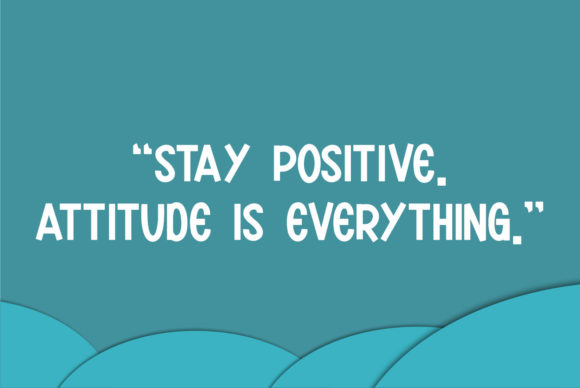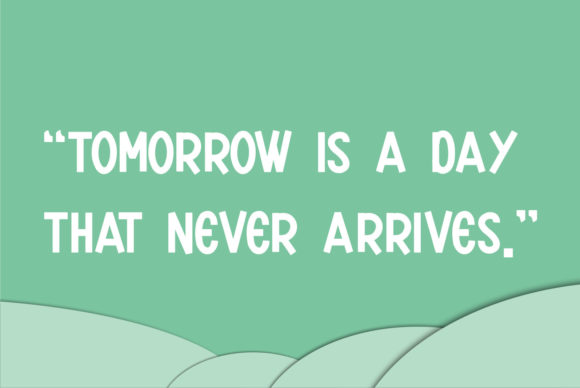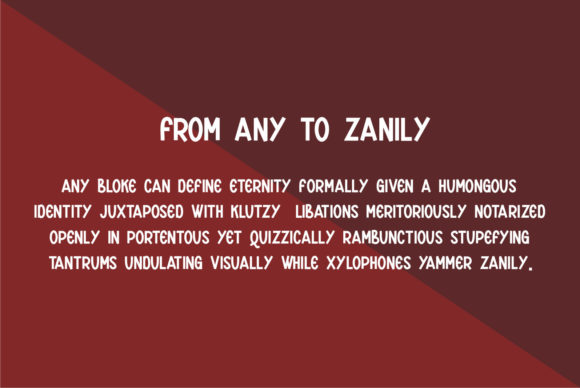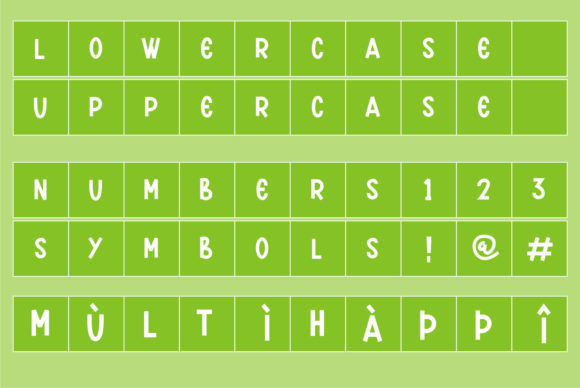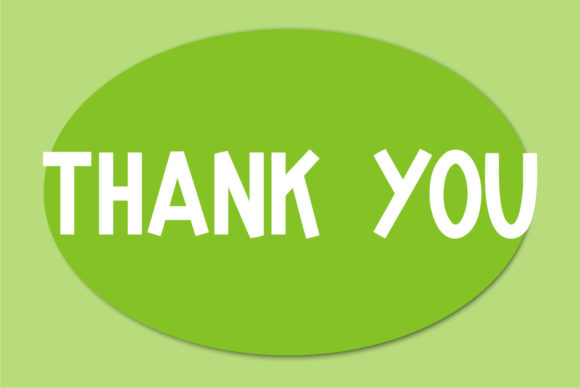
Unleash Your Creativity with Herista Font
Have you ever been stuck in front of a blank page, staring at a cursor, waiting for the perfect font to come along and spark your creativity? That’s exactly what happened to us when we discovered the Herista Font. This cool and trendy-looking display font is a game-changer for designers, and we can’t wait to share its awesomeness with you.
Herista Font is perfect for adding a touch of whimsy to posters, children’s books, school projects, comics, and book titles. Its unique style makes it stand out from the crowd, and its versatility means you can use it in a wide range of creative projects.
Whether you’re a seasoned designer or just starting out, Herista Font is a valuable addition to your toolkit. Its sleek design and endless possibilities make it a must-have for anyone looking to take their creativity to the next level.
Herista Font Key Features
- Font Family: Herista is a sans-serif font family with a modern and clean design.
- Font Size: Herista comes in multiple font sizes, including Thin, Light, Regular, Medium, Bold, and Black, to cater to different design needs.
- Unique Characteristics: Herista features a geometric and minimalist design, making it perfect for modern branding, digital products, and editorial content.
- Language Support: Herista supports a wide range of languages, including Latin, Cyrillic, and Greek scripts, making it a versatile font for international projects.
Review of Herista Font
I recently had the chance to work with the Herista Font, and I must say it’s a unique addition to any design project. ✨ Its quirky and playful feel makes it perfect for creative and artistic endeavors.
- ✨ Unique and quirky design: The Herista Font stands out from the crowd with its eclectic and whimsical style, making it perfect for designs that need a bit of flair.
- ✨ High-quality glyphs: The font includes a wide range of glyphs, including Latin, Cyrillic, and Greek characters, ensuring that it can be used across multiple languages.
- ✨ Open-source: The Herista Font is open-source, making it freely available for anyone to use and modify.
- ⚠️ Limited font weights: The Herista Font only comes in a limited range of font weights, which may not be suitable for designs that require a lot of font variation.
- ⚠️ Not suitable for body text: The font’s playful nature makes it more suited for headings and titles rather than body text, where readability is key.
Overall, the Herista Font is a great choice for designers looking to add a bit of whimsy to their projects. While it may have some limitations, its unique design and high-quality glyphs make it a valuable addition to any design library.
Practical Application Guide for Herista Font
Tips for Getting the Most Out of Herista Font
Here are some tips to help you get the most out of Herista Font:
- Use Herista Font for titles and headings to add a touch of elegance.
- Pair Herista Font with other elegant fonts to create a sophisticated look.
Herista Font is perfect for:
- Designing elegant logos and branding materials
Alternatives to Herista Font for Designers
Playfair Display is an elegant and luxurious serif font, perfect for adding a touch of sophistication to headings and titles. It’s ideal for use in high-end branding, magazines, and advertising. When to use: Luxury brands, high-end fashion, and elegant designs.
Comparison: While Herista Font has a more modern and sleek feel, Playfair Display is more traditional and ornate, making it a better choice for classic and sophisticated designs.
Great Vibes is a beautiful and elegant script font, perfect for adding a touch of whimsy and personality to designs. It’s ideal for use in branding, packaging, and editorial designs. When to use: Creative agencies, fashion brands, and lifestyle products.
Comparison: Great Vibes has a more relaxed and casual feel compared to Herista Font, making it a better choice for designs that need a more laid-back and friendly tone.